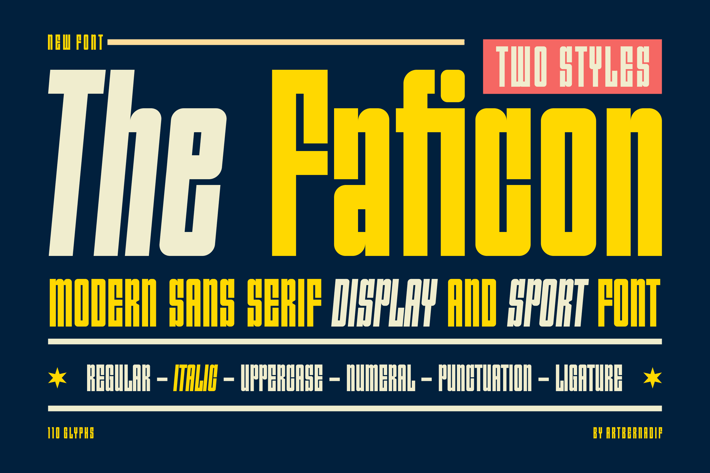
The Faficon - Sans Serif Display And Sport Font
Introducing our new product The Faficon Font - Modern Font
The Faficon Font- Modern Font is a bold and Italic authentic display font. The font is suitable for any branding project like logo, t-shirt printing, esport, and many more.
outstanding in a wide range of contexts.
The Faficon Uppercase (Ligature)
The Faficon Lowercase (Ligature)
* The Faficon Italic (Ligature)